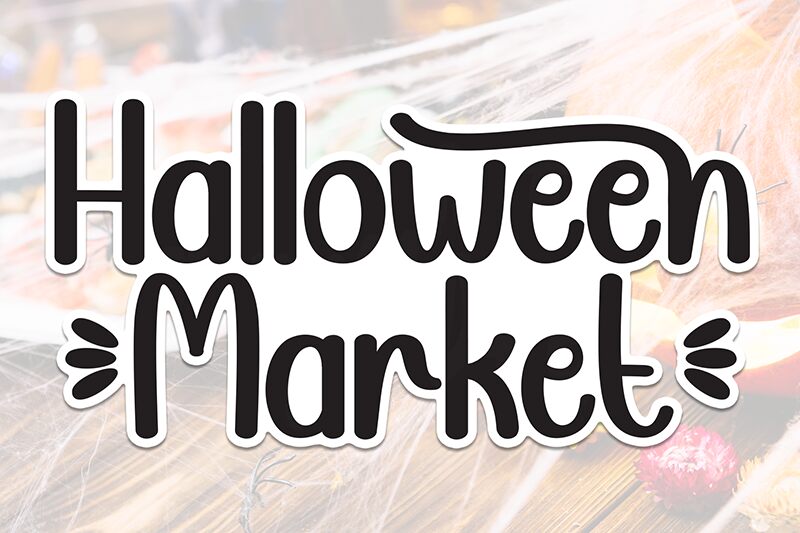
Halloween Market
Halloween Market font by Andi Moz is a handwritten typeface with a quirky and friendly appearance. Its rounded letterforms give off a casual vibe, and it has a unique blend of modern-retro appeal. This playful font combines legibility with individuality for true one of a kind designs.
Put Halloween Market to good use in logo design, branding, labels, blog titles, headers and subheaders in websites or printed materials. Use it as well for stationery design like business cards or invitations.